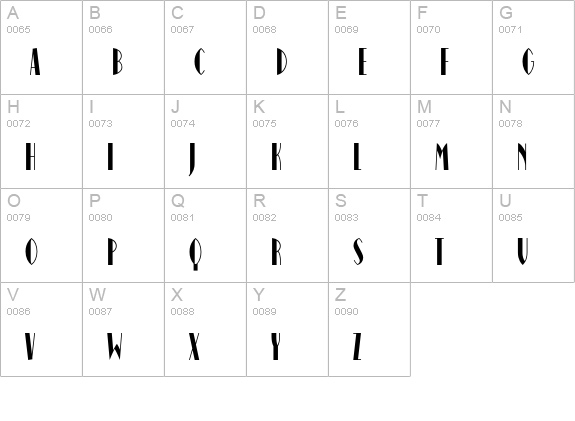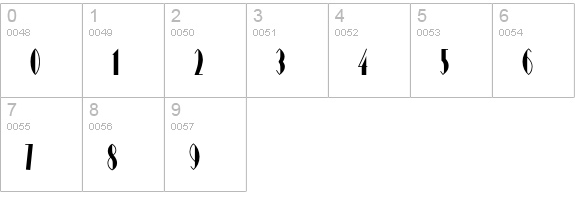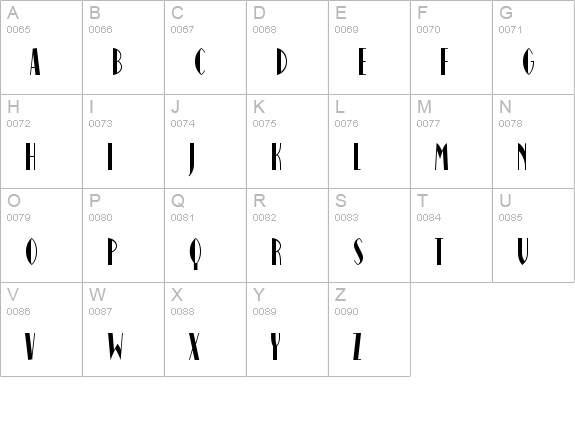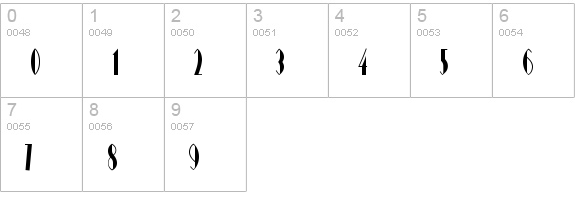
MiamiEF Font Details
MiamiEF is a modern and stylish font that exudes a sense of sophistication and elegance. With its sleek lines and contemporary design, this font is perfect for adding a touch of class to any design project. Whether you're creating a sleek logo, eye-catching poster, or stylish website, MiamiEF is sure to make a lasting impression. The best part? MiamiEF is completely free to download at FontsMarket.com. That's right, you can elevate your designs with this beautiful font without any cost. So why wait? Download MiamiEF today and take your projects to the next level with this stunning typeface.